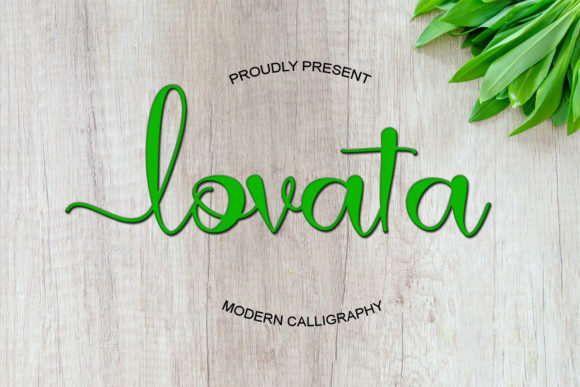
Lovata is the ultimate calligraphy font for exquisite and sophisticated designs. Its elegant curves and sophisticated strokes exude a timeless charm that will captivate your audience. Its modern flair adds a touch of contemporary chic, making it perfect for any project that demands a touch of class. When you choose Lovata, you're not just getting a font; you're investing in a tool that will elevate your designs to new heights. Its versatile Latin script makes it a global language of beauty, adding a touch of international flair to your creations.
Get ready to unleash your creativity and make a lasting impression with Lovata. Whether you're crafting stunning logos, captivating invitations, or simply adding a touch of elegance to your social media posts, this font will become your go-to choice for all things beautiful. Its PUA encoding makes it a breeze to access all the glyphs and swashes, empowering you to create designs that are both visually captivating and effortlessly stylish.
Imagine the impact a Lovata-infused design will have on your audience. They'll be mesmerized by its captivating curves, charmed by its sophisticated strokes, and inspired by its timeless beauty. So why settle for ordinary when you can have extraordinary? Download Lovata today and unlock a world of design possibilities that will leave a lasting impression. Let the elegance and sophistication of Lovata become the cornerstone of your most captivating creations.